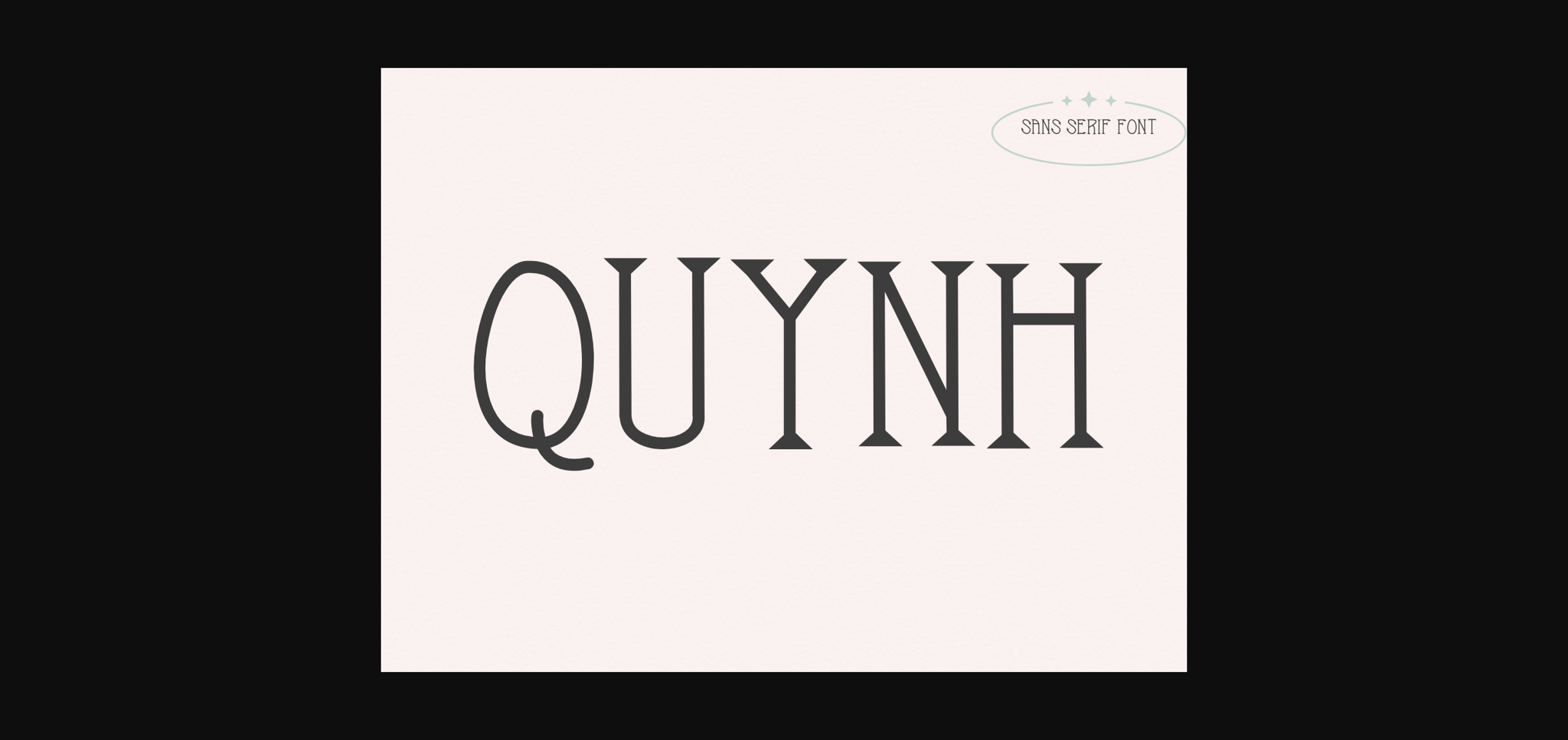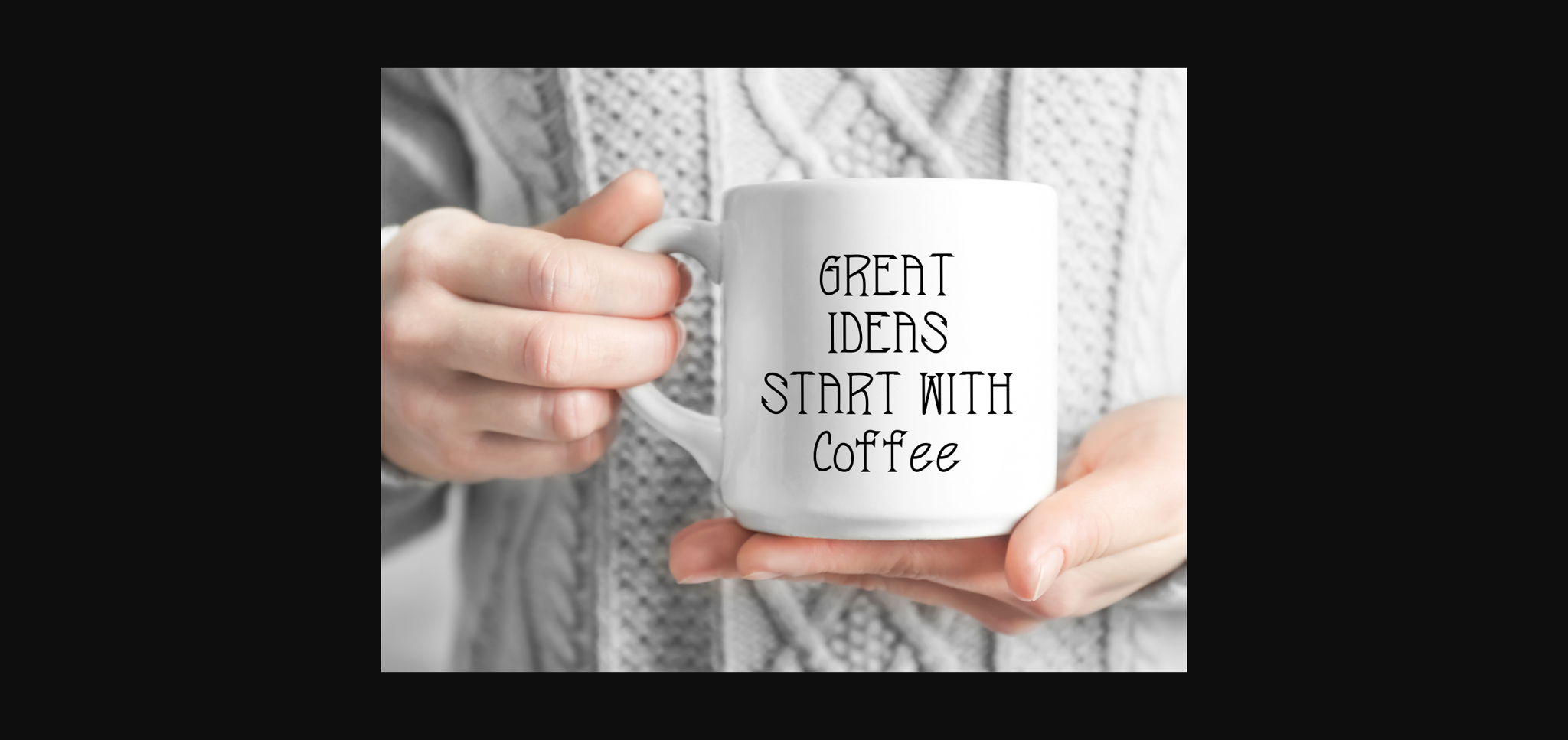
About Quynh Font
Quynh is a lovely and timeless sans serif font. It is the best choice for creating eye catching logos, branding and quotes. Every letter has a unique and beautiful touch, which will make your design come alive!